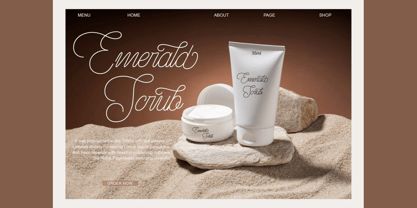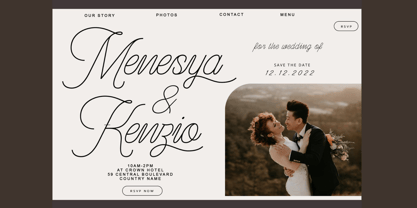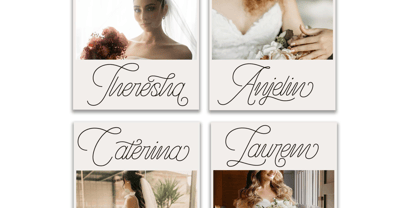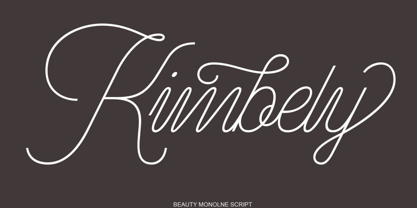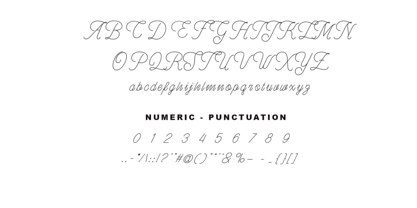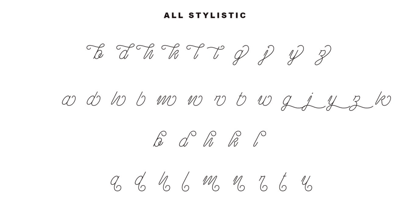
Keelo
The Keelo Font Family was designed by Hasnat Khan and published by Hasnat Studio. Keelo contains 1 styles. More about this family
Keelo is a modern monoline handwritten script font that blends clean simplicity with a natural, hand-drawn charm. Designed for elegance and legibility, its smooth lines and consistent strokes make it ideal for a wide range of creative applications—from branding and logos to magazine layouts and social media graphics.
With its stylish flow and contemporary personality, Keelo adds a personal yet professional touch to both print and digital designs.
Perfect For:
• Book & magazine titles
• Brand identity & logos
• Photography watermarking
• Quotes & social media posts
• Blog headers & website typography
• Posters, packaging, and advertising
Font Features:
• Uppercase & lowercase letters
• Numerals & punctuation
• Functional ligatures
• Multilingual language support
• Stylistic alternates for custom flair
Bring modern handwriting to life with Keelo — a refined monoline script font that’s effortless, versatile, and full of character.